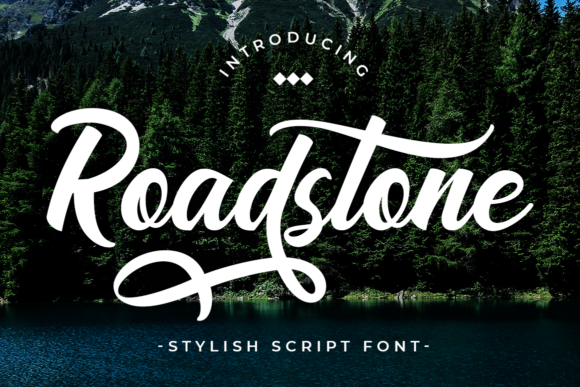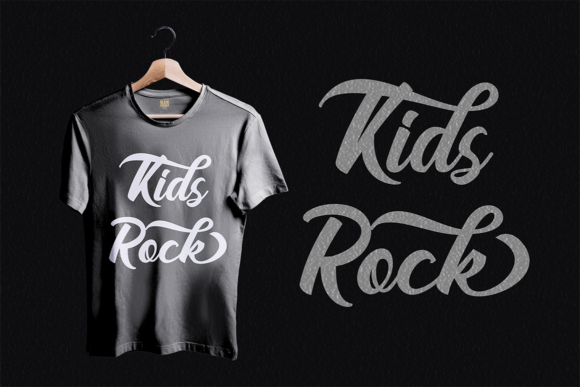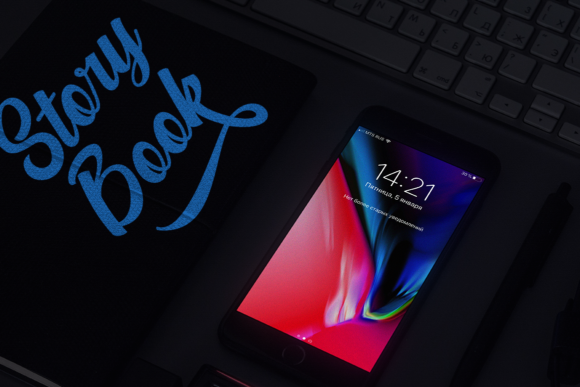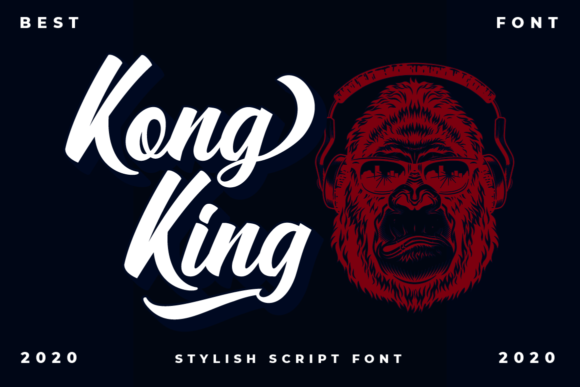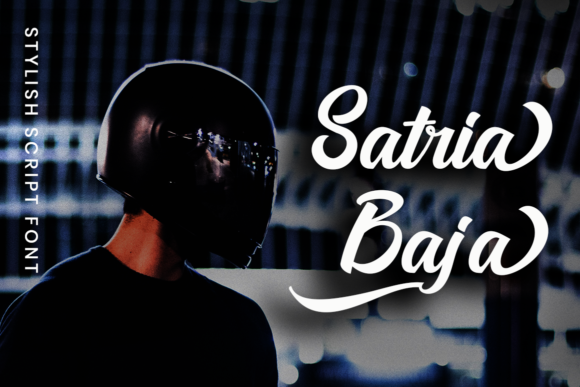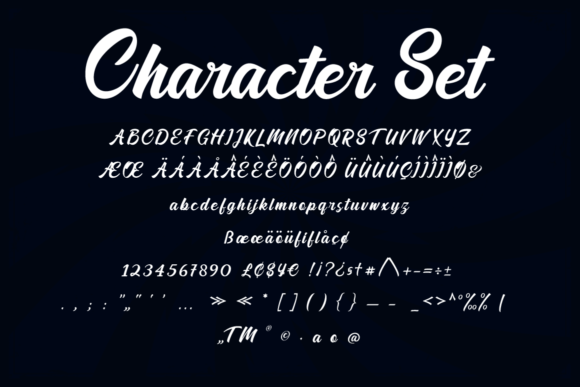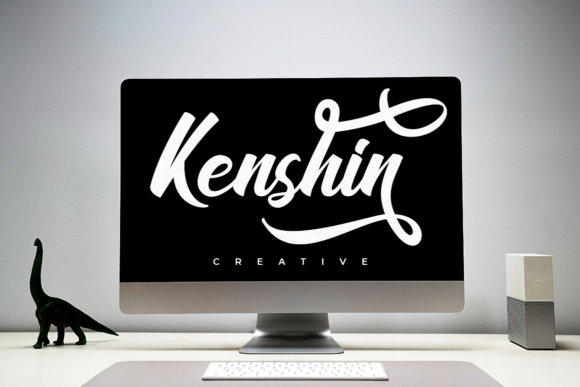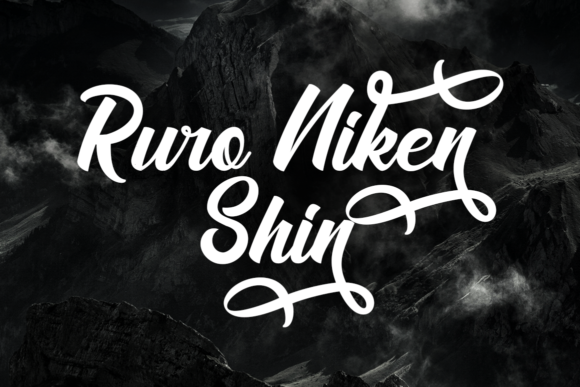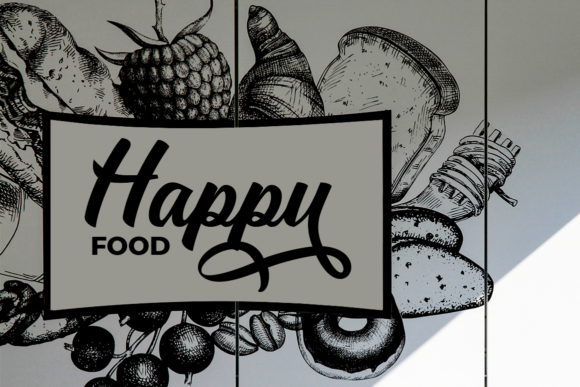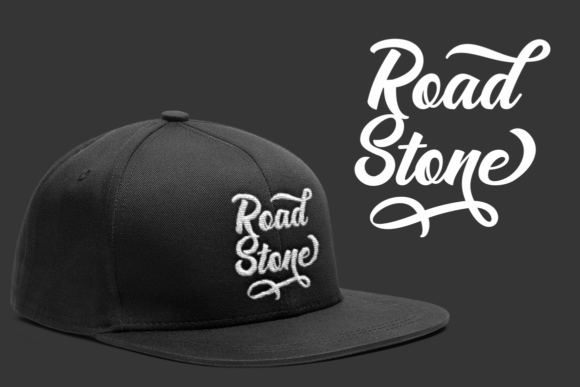
Road Stone Font
About Road Stone Font
Road Stone is a sweet and friendly handwritten font. Its natural and unique style makes it incredibly fitting for a large pool of designs. The only limit is your imagination!